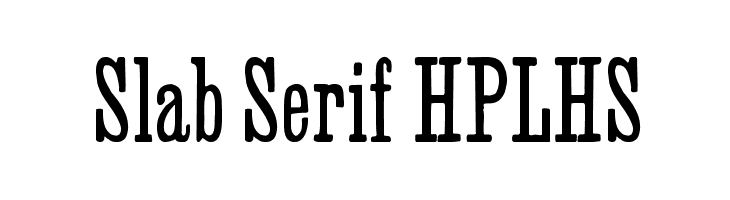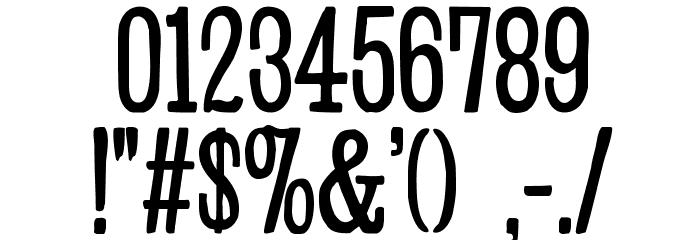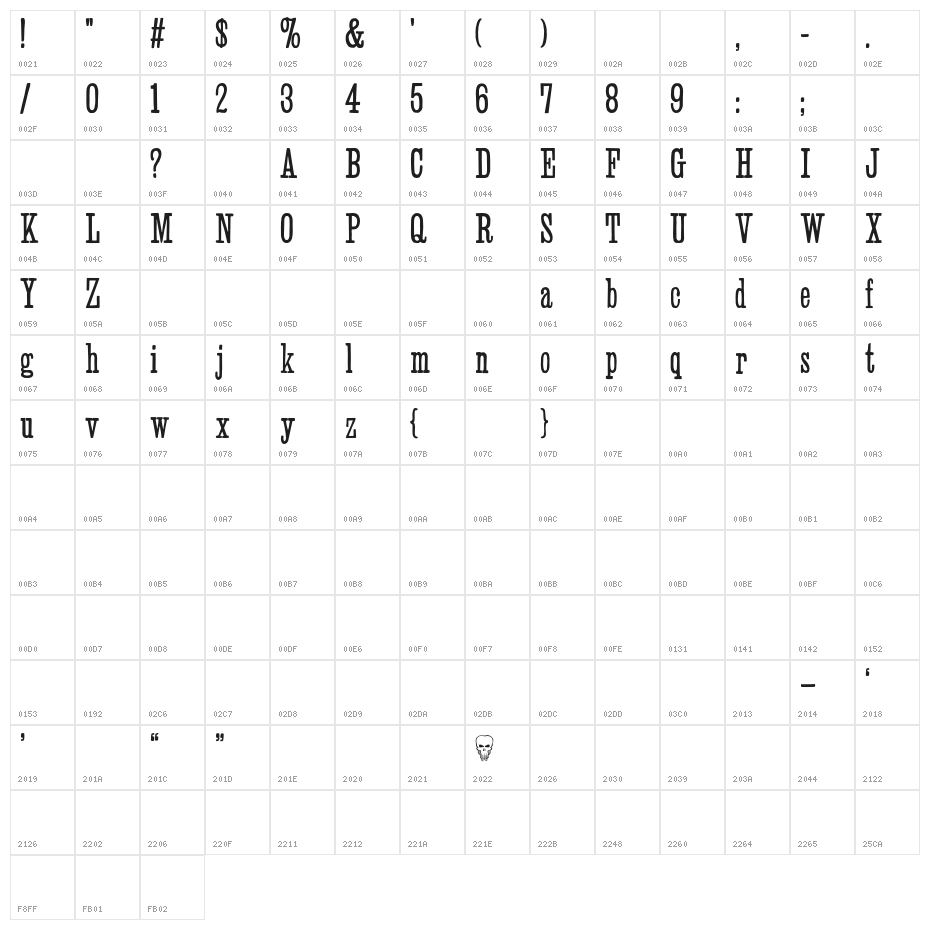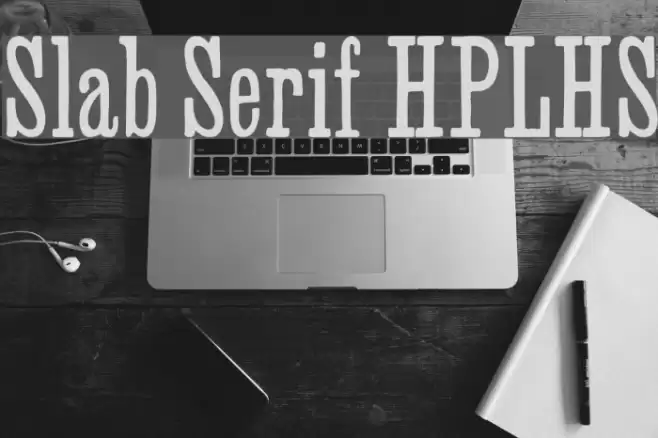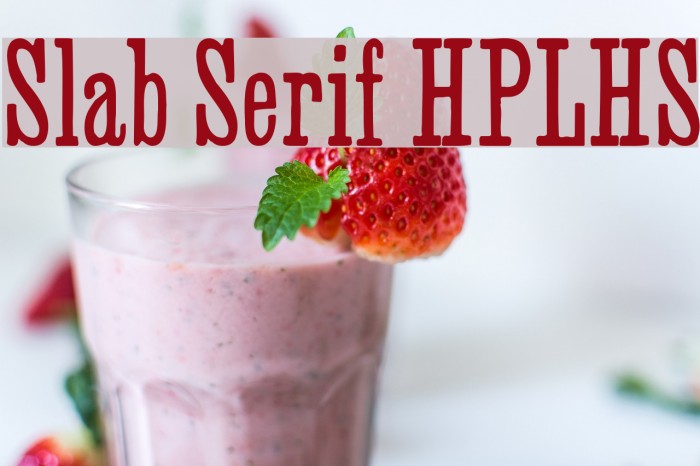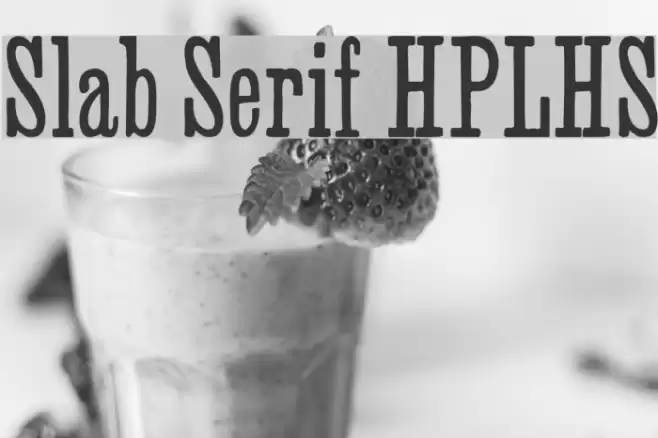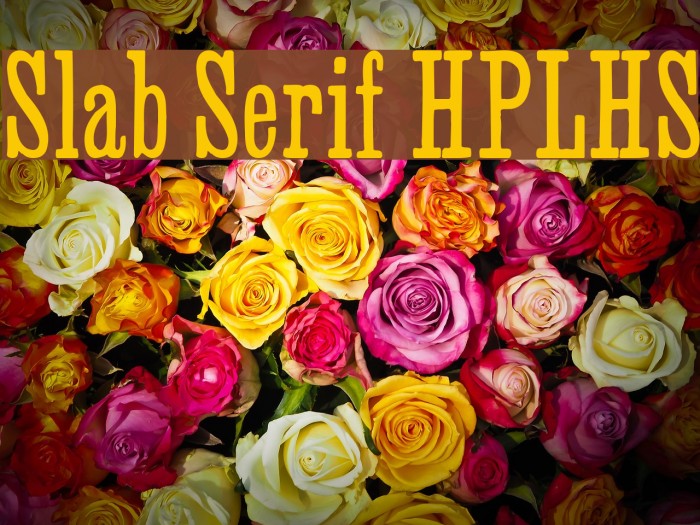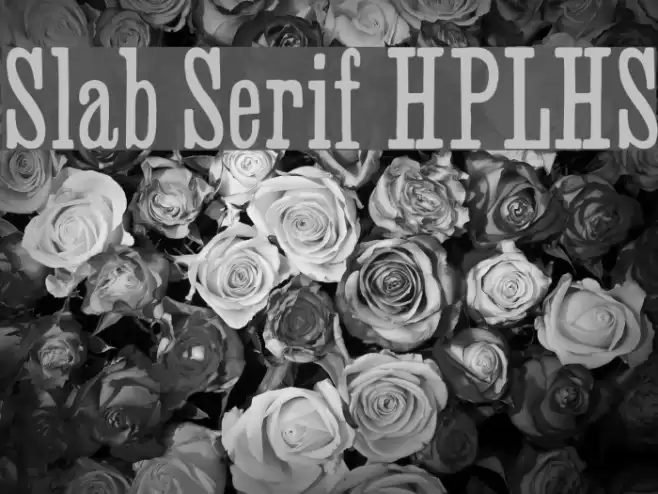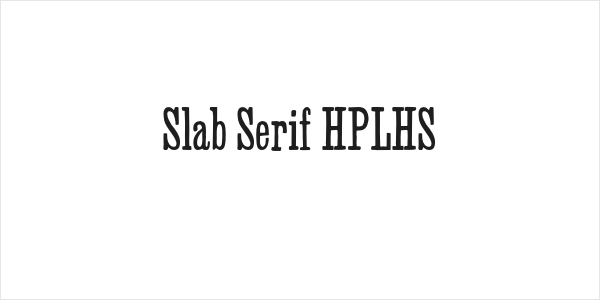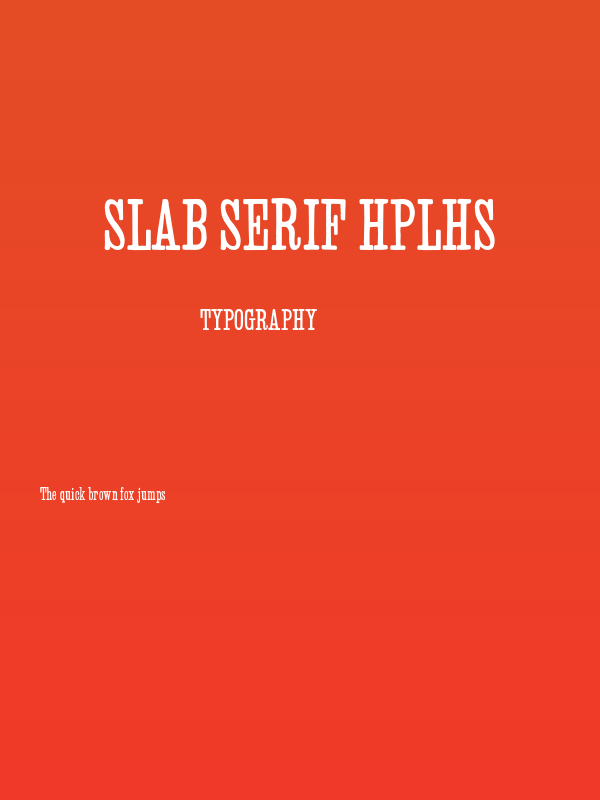
Slab Serif HPLHS Font
Slab Serif HPLHS Description
This font features a bold and robust slab serif style, characterized by thick, block-like serifs that give it a strong and authoritative presence. The uppercase letters are tall and commanding, while the lowercase letters maintain a consistent weight, providing a harmonious balance. The numerals are clear and easily distinguishable, making them suitable for various applications. The special characters are well-defined, adding versatility to the font's usage. Overall, this font exudes a vintage charm with a modern twist, making it ideal for projects that require a touch of classic elegance combined with contemporary flair.
| Overall Style | Vintage, Modern |
| Proposed Projects | Ideal for posters, headlines, branding, and editorial design. |